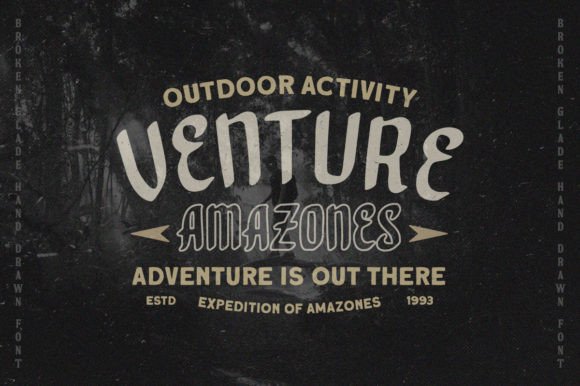
Introducing Broken Glade: A Timeless Vintage-Style Display Font
In the world of typography, fonts play a crucial role in conveying the tone and personality of a brand or design. Among the numerous fonts available, Broken Glade stands out as a classy, vintage-style display font that can elevate any creation. In this article, we’ll explore the features, benefits, and uses of Broken Glade, and why it’s an incredible asset to your font library.
What is Broken Glade Font?
Broken Glade is a carefully crafted, vintage-style display font that exudes elegance and sophistication. Its unique design combines classic elements with a modern twist, making it perfect for a wide range of applications, from branding and advertising to packaging and digital media.
The font’s name, “Broken Glade,” evokes a sense of nostalgia and timelessness, which is reflected in its design. The broken, or distressed, effect on the font’s letters adds a layer of depth and character, giving it a distinctive look that sets it apart from other fonts.
Key Features of Broken Glade Font
- Vintage-style design: Broken Glade boasts a classic, timeless design that evokes a sense of nostalgia and sophistication.
- Distressed effect: The font’s broken, or distressed, effect adds a layer of depth and character, giving it a unique look.
- High-quality design: Broken Glade is meticulously crafted to ensure high-quality rendering, even at large sizes.
- Multilingual support: The font supports multiple languages, making it a versatile choice for global brands and designers.
- Easily customizable: Broken Glade can be easily customized to suit your brand’s style, using various font editing software.
Benefits of Using Broken Glade Font
Broken Glade offers numerous benefits to designers, marketers, and brands. Here are some of the advantages of using this versatile font:
- Elevate your brand’s style: Broken Glade’s unique design can instantly elevate your brand’s style, adding a touch of elegance and sophistication.
- Stand out from the crowd: The font’s distinctive look ensures that your brand stands out from the competition, grabbing attention and leaving a lasting impression.
- Versatile applications: Broken Glade can be used across various platforms, including print, digital, and web, making it a valuable addition to your font library.
- Time-saving: With Broken Glade, you can save time and effort in designing and refining your typography, allowing you to focus on other creative aspects.
Use Cases for Broken Glade Font
Broken Glade’s versatility makes it suitable for a wide range of applications. Here are some use cases where this font shines:
- Branding and logos: Use Broken Glade to create a unique and memorable logo that reflects your brand’s personality.
- Advertising and marketing: The font’s eye-catching design makes it perfect for headlines, titles, and promotional materials.
- Packaging design: Add a touch of elegance to your product packaging with Broken Glade, making it stand out on store shelves.
- Digital media: Use Broken Glade in digital media, such as social media graphics, website headers, and video titles, to create a lasting impression.
Tips for Using Broken Glade Font Effectively
To get the most out of Broken Glade, follow these tips:
- Pair with complementary fonts: Combine Broken Glade with complementary fonts to create a harmonious and visually appealing typography.
- Experiment with colors: Try different color schemes to find the perfect match for your brand and design.
- Adjust font sizes: Experiment with font sizes to create visual hierarchy and emphasize key messages.
- Use font variations: Take advantage of Broken Glade’s font variations to add depth and interest to your design.
Broken Glade is a classy, vintage-style display font that offers a unique blend of elegance and sophistication. Its versatility, high-quality design, and distressed effect make it an incredible asset to your font library. Whether you’re a designer, marketer, or brand owner, Broken Glade is an excellent choice for elevating your brand’s style and creating visually stunning designs.